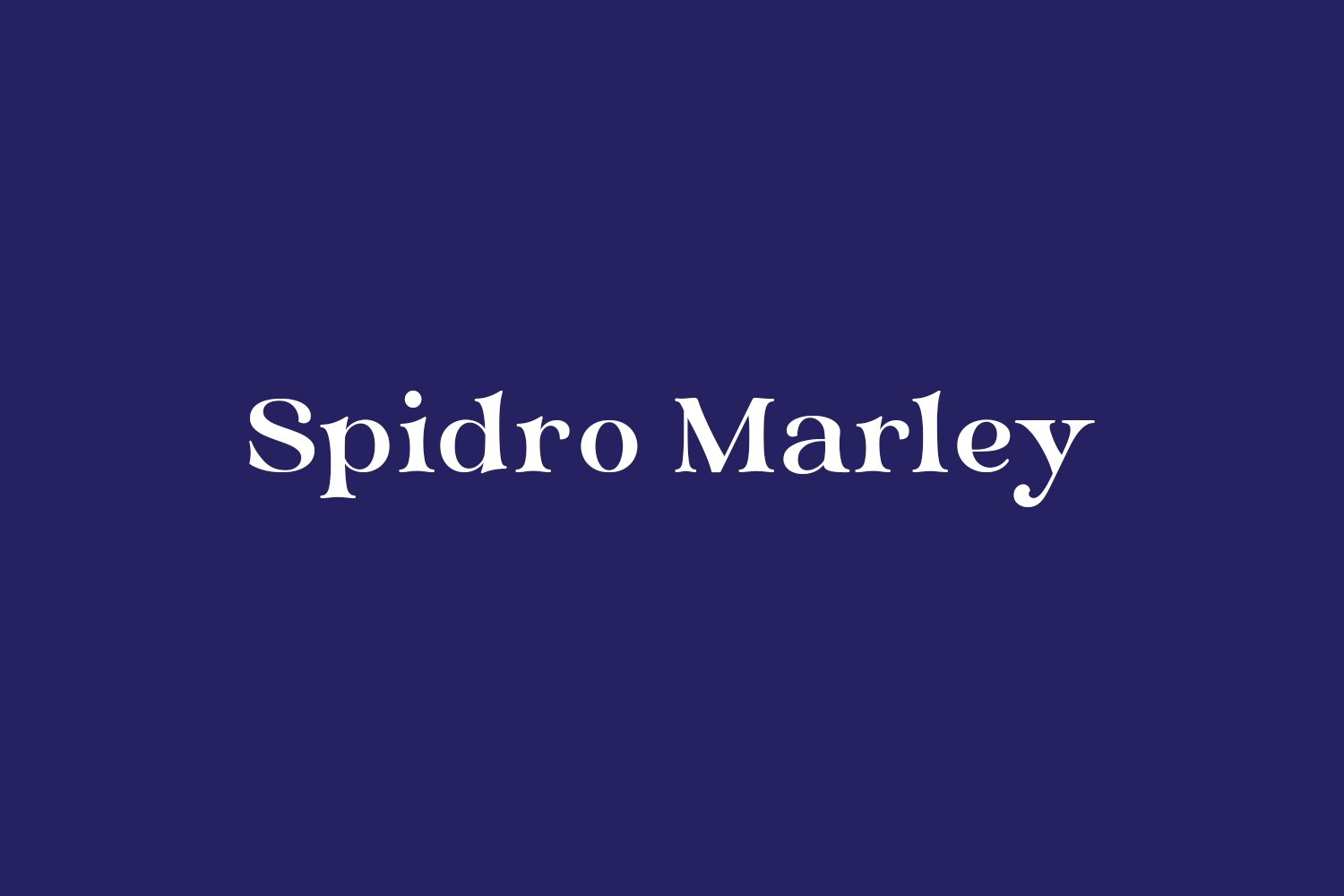
Introducing Spidro Marley Free Font, an exquisite serif font designed to elevate your design projects with a touch of opulence and sophistication. Let this glamorous typeface infuse your creations with a luxurious allure that is sure to captivate your audience. Spidro Marley Free Font is free for personal use only. Please purchase the full version for commercial use.
Designed by Alit Design